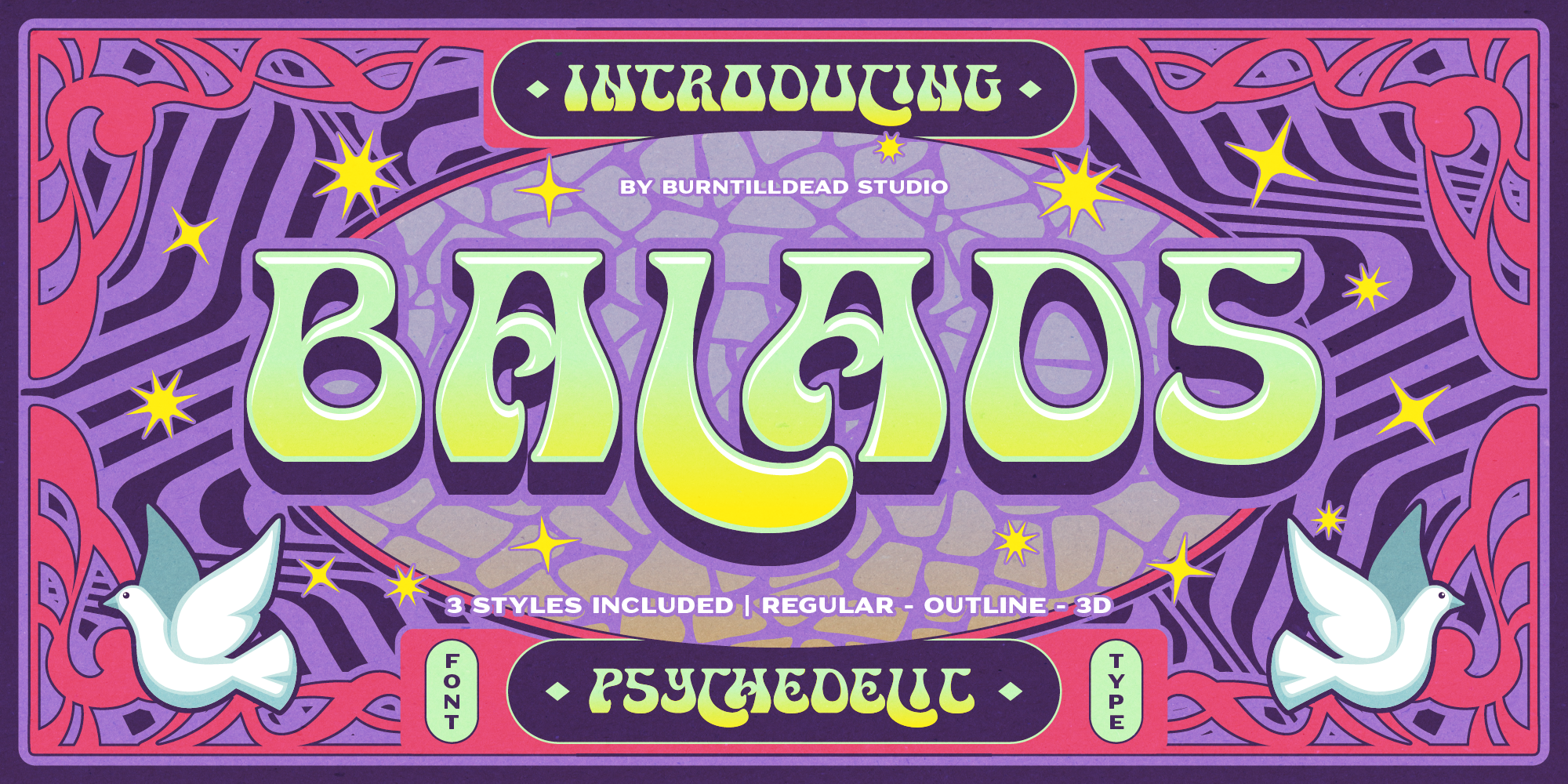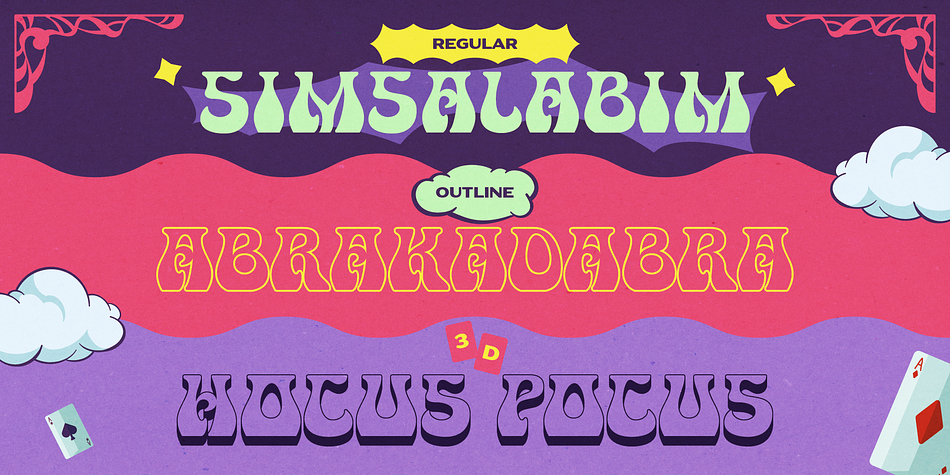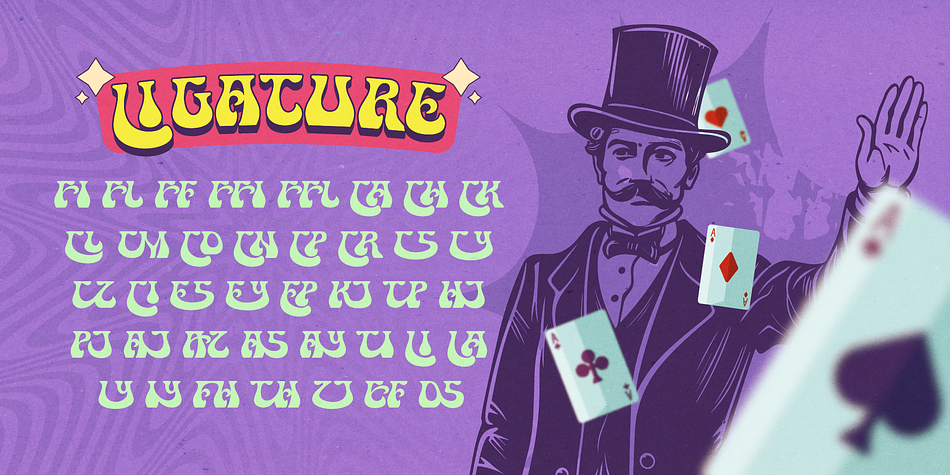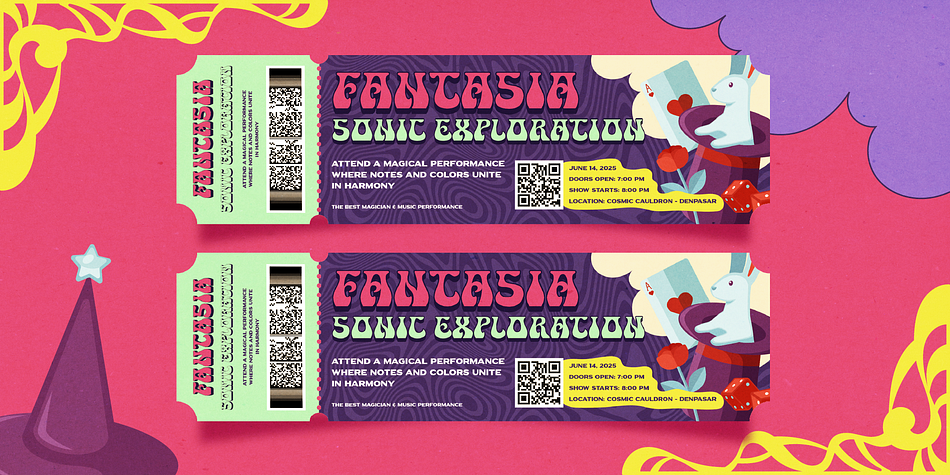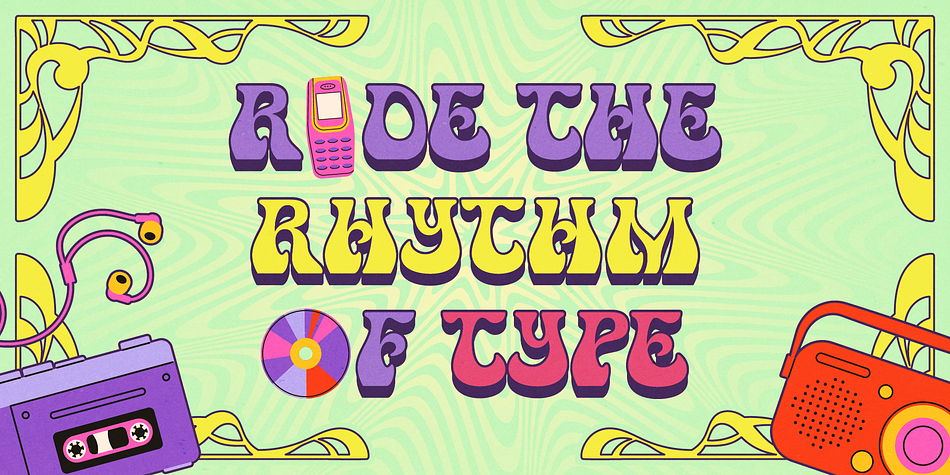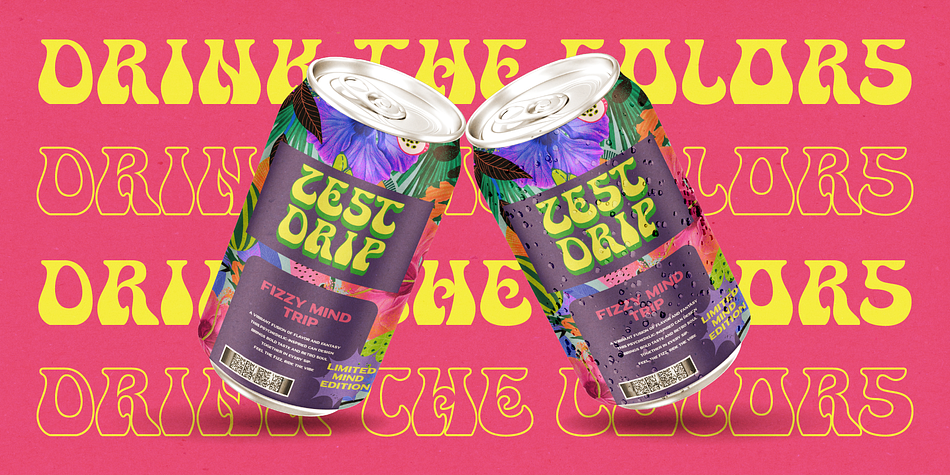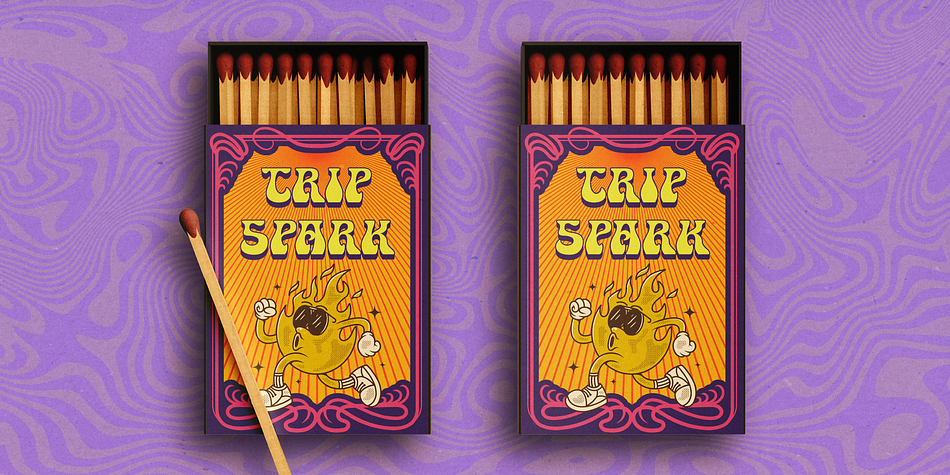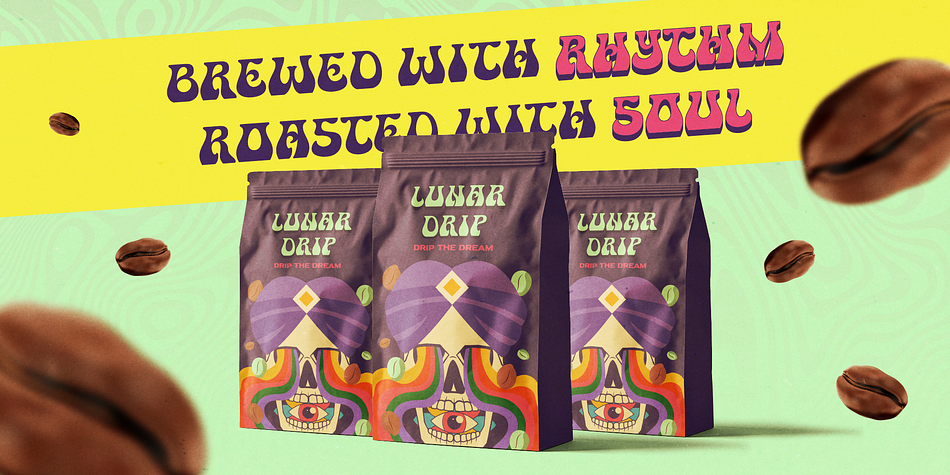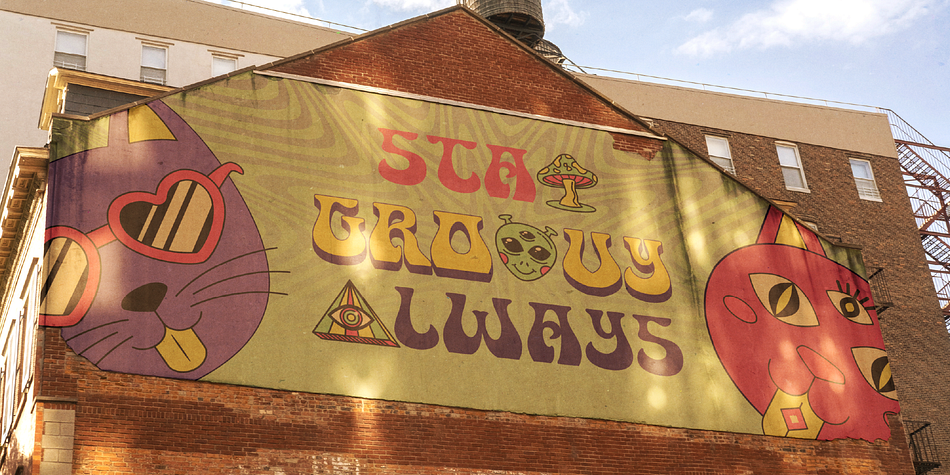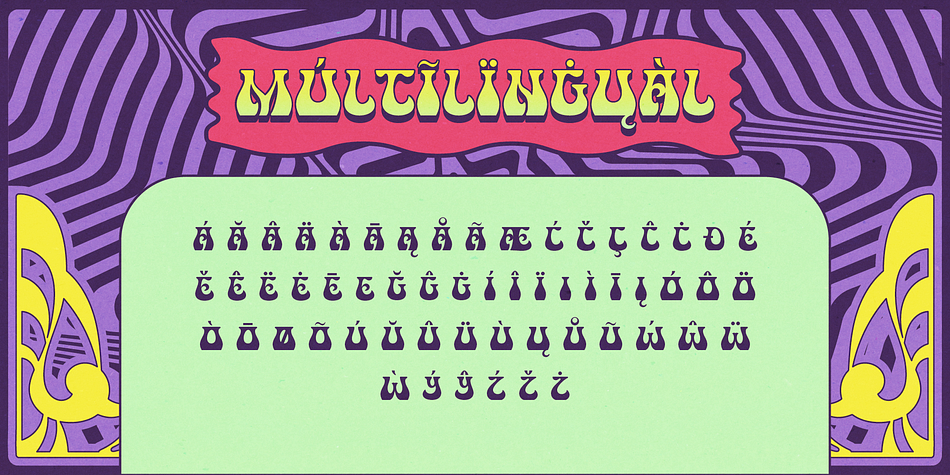
Balads
Designed by Eric Kurniawan, Balads is a display serif font family. This typeface has three styles and was published by Burntilldead.
Step into a colorful, dreamy world with Balads!
This psychedelic typeface is heavily inspired by 70s poster art—where freedom, love, and music ruled. With chunky, melting letterforms and magical energy in every curve, Balads brings back the trippy vibes of vintage festival posters, groovy album covers, and classic rock aesthetics.
Balads radiates the spirit of freedom, peace, and good vibes. It’s bold, whimsical, and unapologetically funky—designed to transport your audience straight into a world where colors swirl, music flows, and everything feels just a little more magical. Whether you’re designing for modern projects or want to capture a nostalgic retro feel, this font will do the talking.
Included in the pack are 3 unique styles to give your creativity more room to play: Regular, Outlibe and 3D. You can easily mix and match styles for a multi-dimensional effect. Try layering the Outline with 3D, or keep things clean and groovy with the Regular alone. It’s super flexible and works great in both print and digital spaces.
Balads is not just a font—it’s a vibe. A little wild, a little weird, and a whole lot of wonderful. Whether you’re working on posters for summer music festivals, indie band merchandise, album covers, editorial layouts, or quirky creative artwork, this font gives your project that retro, hippie, and magical touch.